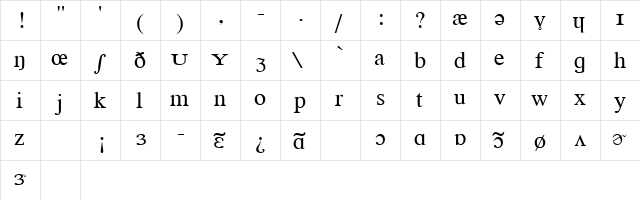
Phonetic Regular
Design Context for Phonetic Typeface
Phonetic offers clean, dependable letterforms without strong stylistic allegiance, making it a practical choice for designers who need flexibility.